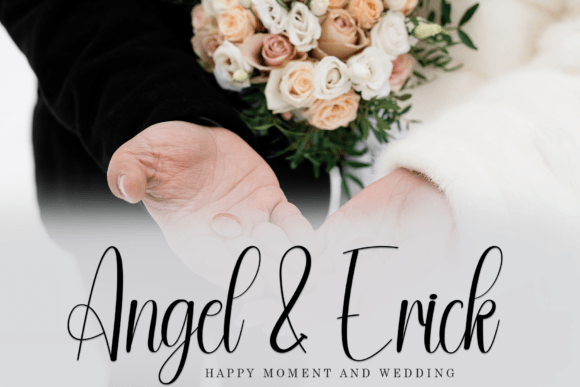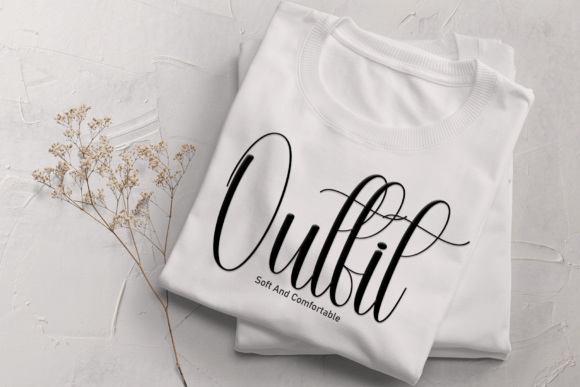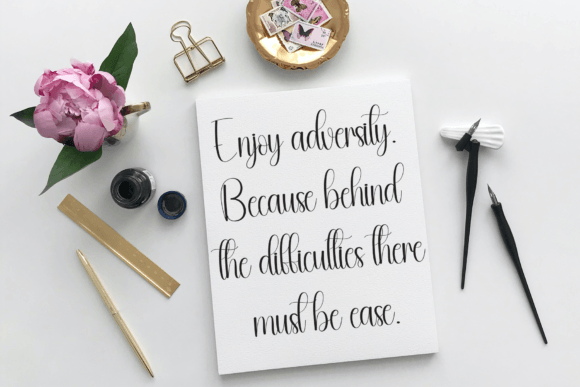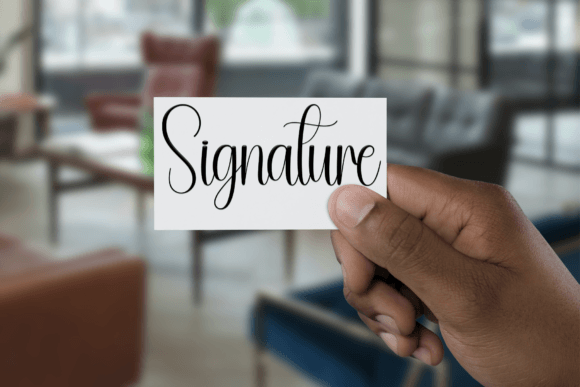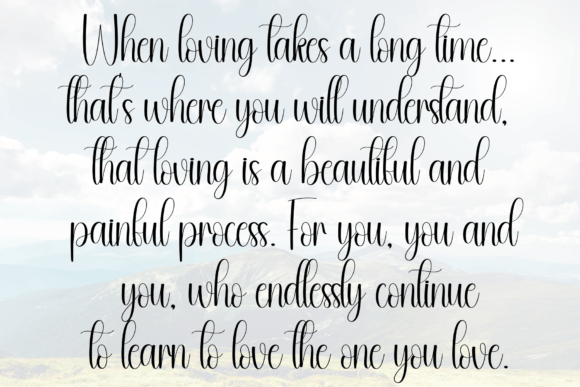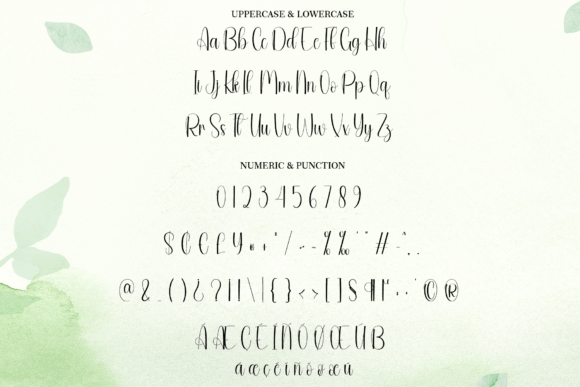
Introducing Dailylife Font: The Sweet and Friendly Handwritten Font for Your Design Needs
Are you a designer or crafter looking for a font that can add a personal touch to your designs? Look no further than Dailylife Font, a sweet and friendly handwritten font that’s perfect for creating beautiful and eye-catching designs. In this article, we’ll take a closer look at Dailylife Font, its features, and how you can use it to elevate your designs.
What is Dailylife Font?
Dailylife Font is a handwritten font that’s designed to bring a touch of warmth and personality to your designs. It’s a sweet and friendly font that’s perfect for creating designs that require a personal touch, such as wedding invitations, cards, and other paper crafts. The font is carefully crafted to be both cute and fun, making it ideal for designs that need a playful and whimsical feel.
Key Features of Dailylife Font
So, what makes Dailylife Font so special? Here are some of its key features:
- Handwritten style: Dailylife Font has a beautiful handwritten style that’s perfect for creating personal and unique designs.
- Sweet and friendly: The font has a sweet and friendly feel that’s perfect for designs that require a touch of warmth and personality.
- Cute and fun: Dailylife Font is a cute and fun font that’s perfect for designs that need a playful and whimsical feel.
- High-quality: The font is carefully crafted to ensure that it’s of high quality and can be used for a variety of design projects.
Use Cases for Dailylife Font
So, what can you use Dailylife Font for? Here are some ideas:
- Wedding invitations: Dailylife Font is perfect for creating beautiful and elegant wedding invitations that will make your guests feel special.
- Cards: The font is great for creating greeting cards, birthday cards, and other types of cards that require a personal touch.
- Paper crafts: Dailylife Font is ideal for paper crafts, such as scrapbooking, journaling, and other types of paper crafting.
- Signs: The font can be used to create beautiful signs, such as welcome signs, directional signs, and other types of signs.
Why Choose Dailylife Font?
So, why should you choose Dailylife Font for your design needs? Here are some reasons:
- Unique and personal: Dailylife Font is a unique and personal font that will add a touch of warmth and personality to your designs.
- High-quality: The font is of high quality and can be used for a variety of design projects.
Tips for Using Dailylife Font
Here are some tips for using Dailylife Font:
- Use it for headings: Dailylife Font is perfect for headings and titles, as it adds a touch of warmth and personality to your designs.
- Mix it with other fonts: The font can be mixed with other fonts to create a unique and interesting design.
- Experiment with colors: Dailylife Font looks great in a variety of colors, so don’t be afraid to experiment and find the perfect color for your design.
In conclusion, Dailylife Font is a sweet and friendly handwritten font that’s perfect for designers and crafters who want to add a personal touch to their designs. With its cute and fun style, high-quality craftsmanship, and affordability, Dailylife Font is an excellent choice for a variety of design projects. Whether you’re creating wedding invitations, cards, or other paper crafts, Dailylife Font is sure to bring a touch of warmth and personality to your designs.